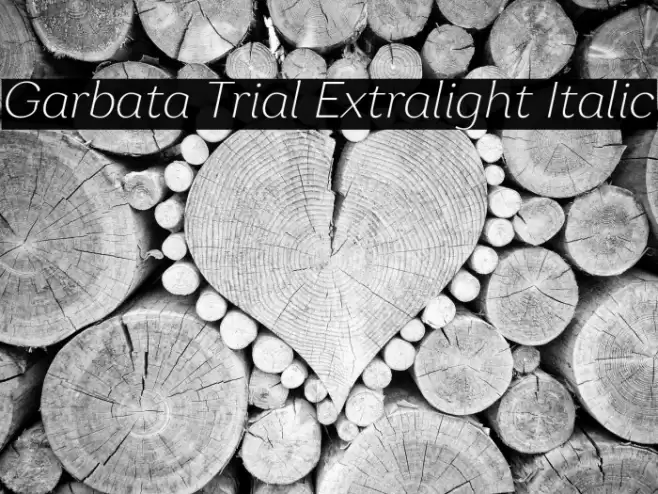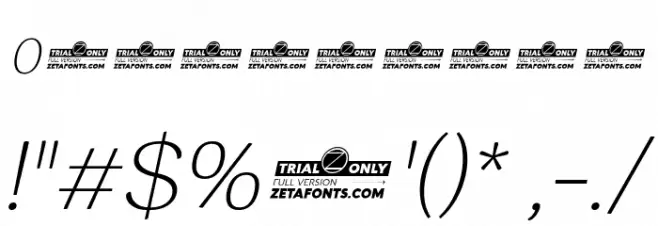
Garbata Trial Extralight Italic Font
Garbata Trial Extralight Italic Description
This font exhibits a sleek and elegant design with a modern touch. The characters are crafted with an extra-light weight, providing a delicate and airy feel. The italic style adds a sense of motion and sophistication, making it suitable for refined and stylish applications. The uppercase and lowercase letters maintain a consistent slant, enhancing the overall fluidity of the typeface. The numerals and special characters are designed with the same attention to detail, ensuring uniformity across all glyphs. This font is ideal for projects that require a touch of elegance and modernity.
- Proposed Projects: Ideal for fashion magazines, luxury branding, wedding invitations, and elegant website headers.
- Use Case: Headlines, Logos, Invitations